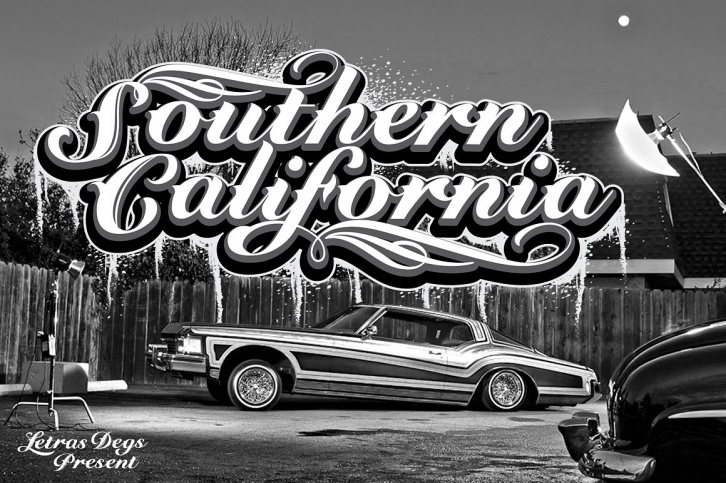
Southern California is a beautiful font that was designed by maghrib. It's a great choice for designers and creatives who need such a font. It was released on September 21, 2018 and the file size is 14.85 MB. Southern California may give a more youthful, expressive and casual look to your project. It is a very beautiful, refined, elegant, and high-quality font.